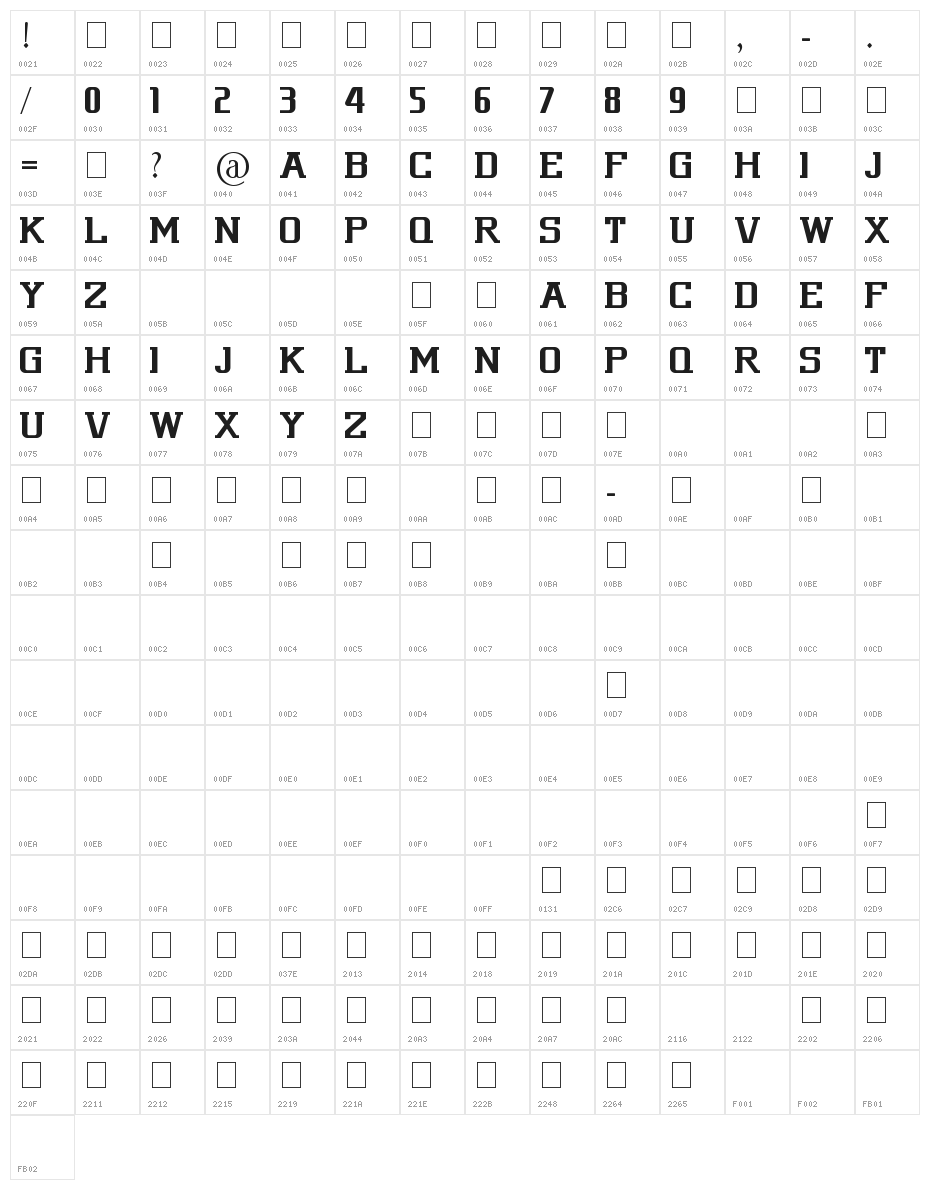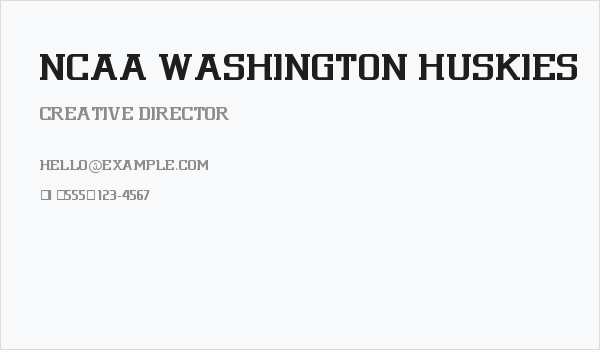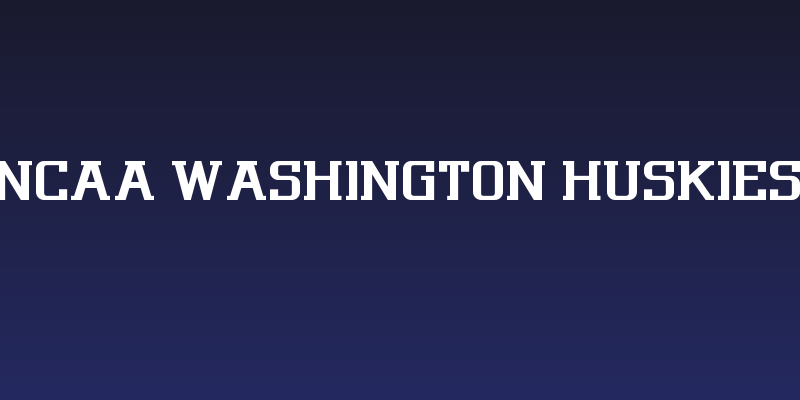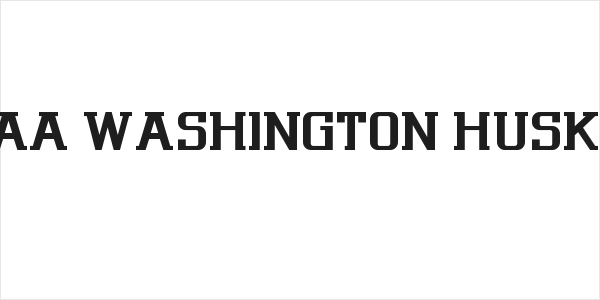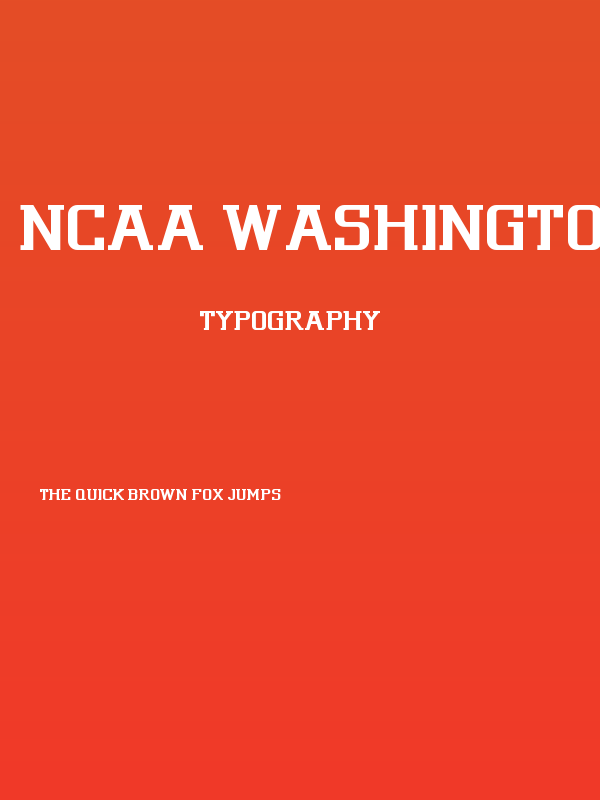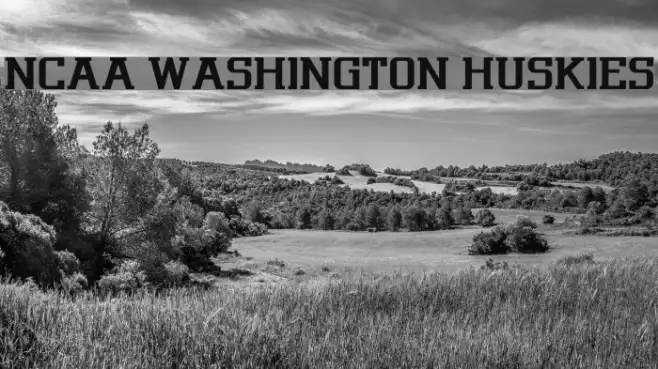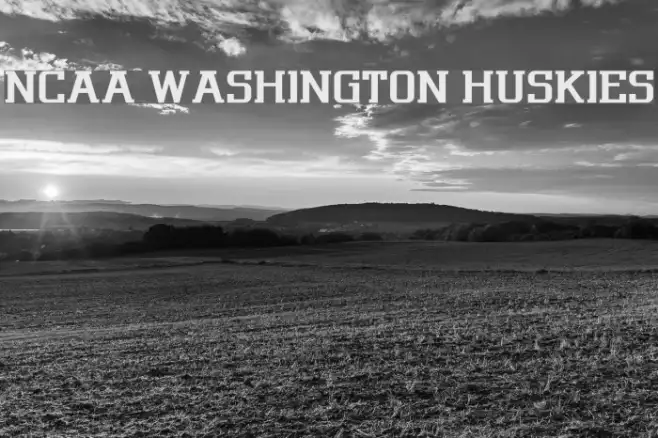
NCAA Washington Huskies Font
NCAA Washington Huskies Description
This font features a bold, athletic style with strong, angular lines and a robust presence. The uppercase letters are designed with a blocky, geometric structure, giving them a commanding and authoritative look. The numerals follow the same bold design, ensuring consistency across all characters. The font is reminiscent of sports and collegiate themes, making it ideal for conveying strength and determination. Its clean lines and sharp edges make it highly legible, even from a distance, which is perfect for team jerseys, banners, and promotional materials.
| Use Case | Headlines, Logos, Sports Branding |
| Proposed Projects | Ideal for sports team branding, collegiate merchandise, event posters, and athletic apparel. |